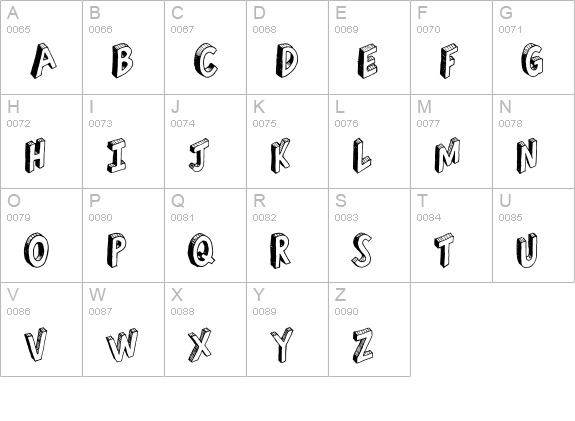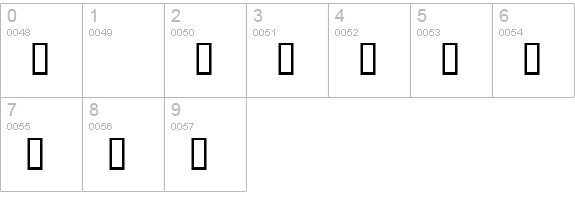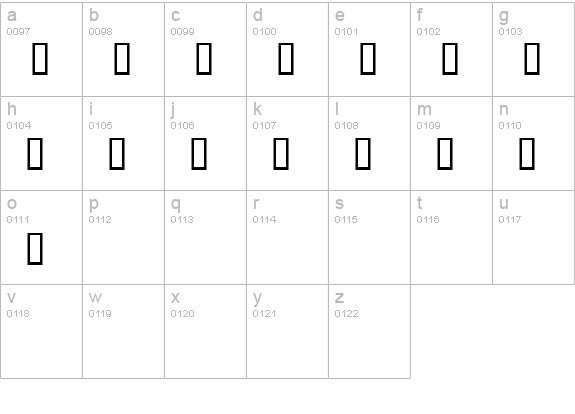
Refuse Trip Font Details
Refuse Trip font is a striking and bold typeface that exudes a rebellious and adventurous spirit. With its unique and edgy design, this font is perfect for adding a touch of urban grit and modernity to any project. Each letter is meticulously crafted with sharp angles and distinct lines, creating a captivating visual impact. The Refuse Trip font is versatile, making it suitable for a wide range of design applications such as logos, posters, headlines, and more. Its bold and daring personality adds a sense of confidence and power to any text, demanding attention and leaving a lasting impression. One of the most remarkable aspects of the Refuse Trip font is that it is available for free download at FontsMarket.com. This means that designers and creatives can effortlessly access and utilize this incredible font without any financial constraints. FontsMarket.com provides a user-friendly platform where users can easily navigate and discover a vast collection of high-quality fonts, ensuring that Refuse Trip font enthusiasts can get their hands on this impressive typeface with just a few clicks. Whether you are working on a personal project or a professional endeavor, the Refuse Trip font is sure to elevate your designs to new heights. Its bold and modern aesthetic, combined with its availability as a free download, makes it an invaluable resource for designers seeking an impactful and unique typography solution. Embrace the rebellious spirit of Refuse Trip font and let it bring your designs to life.